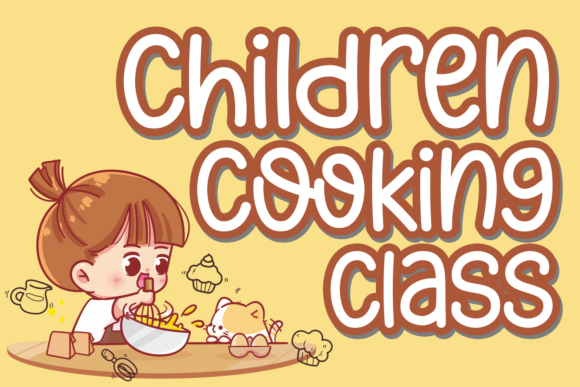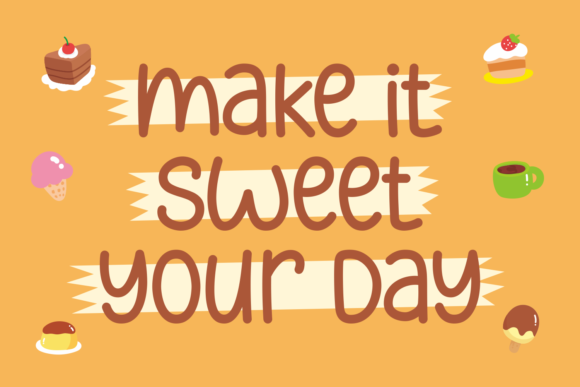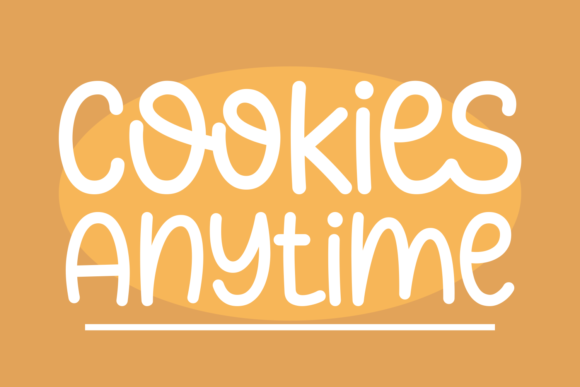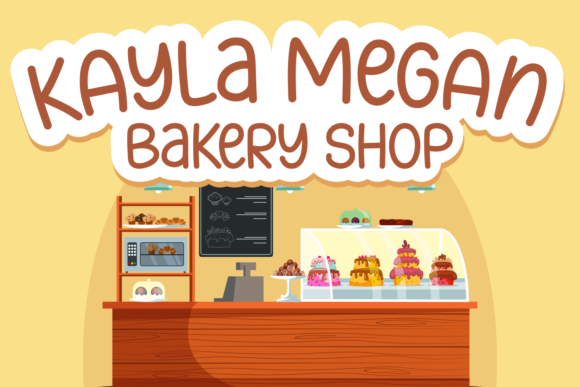
Introduction to Favourite Cookies Font Font
Fonts play a crucial role in design, and the Favourite Cookies Font font is a typeface that brings both character and versatility to any project. Whether you’re working on a branding project, a website, or a print design, the Favourite Cookies Font font offers a unique style that can elevate your work.
Favourite Cookies is a simple and clean handwritten font.
It is perfect for any branding project such as logos, t-shirt printing, creative products, and more It will look extraordinary in a variety of contexts.
Key Features of Favourite Cookies Font Font
Why Choose Favourite Cookies Font Font?
The Favourite Cookies Font font is more than just a typeface – it’s a design tool that helps you communicate your message with style and clarity. Its unique character set and versatile design make it suitable for a wide range of applications, from elegant invitations to bold headlines.
With its carefully crafted letterforms and balanced proportions, the Favourite Cookies Font font ensures readability and visual appeal across all mediums.
What makes Favourite Cookies Font font special?
The Favourite Cookies Font font stands out with its unique design, exceptional readability, and versatility across various design applications.